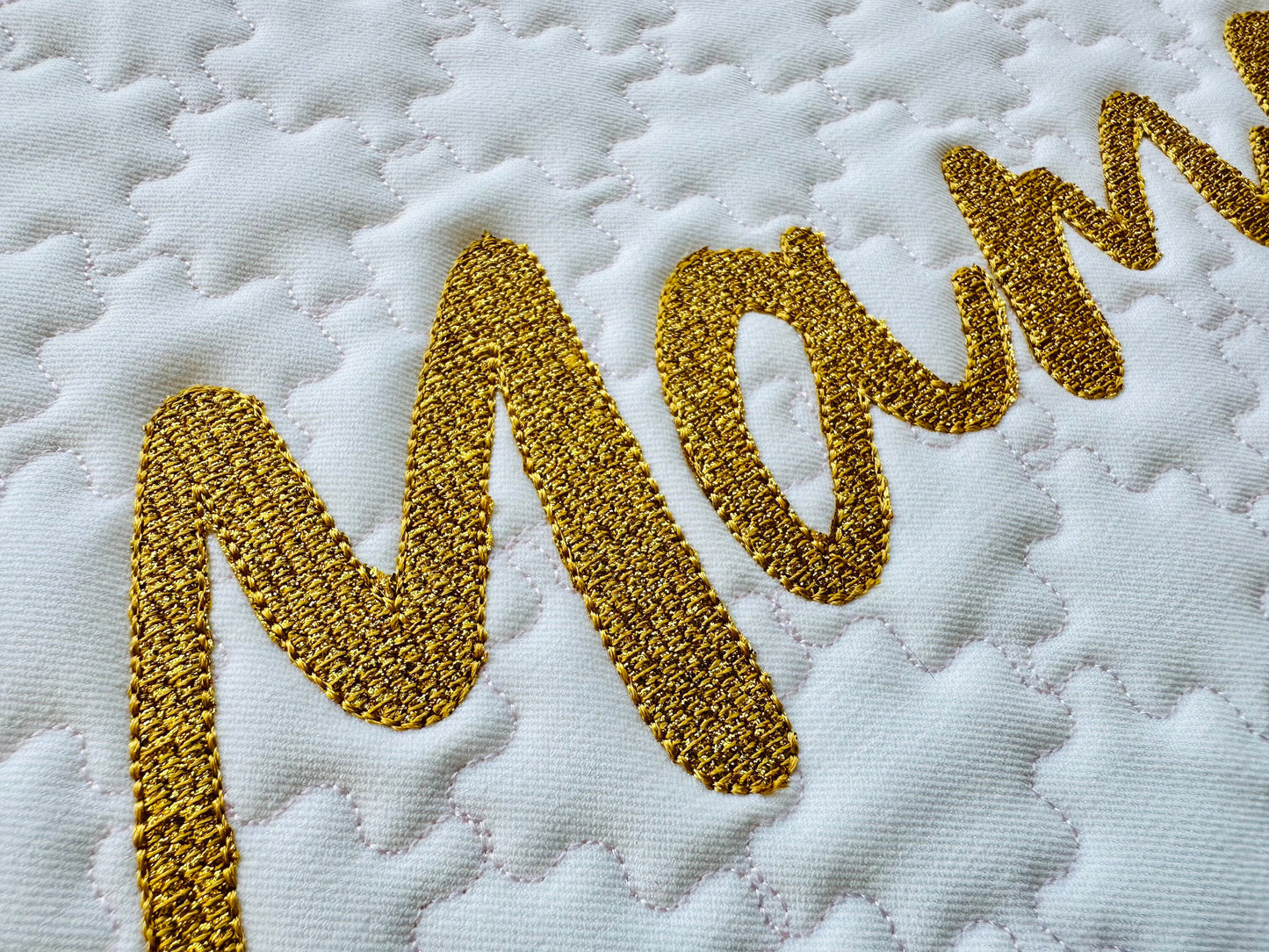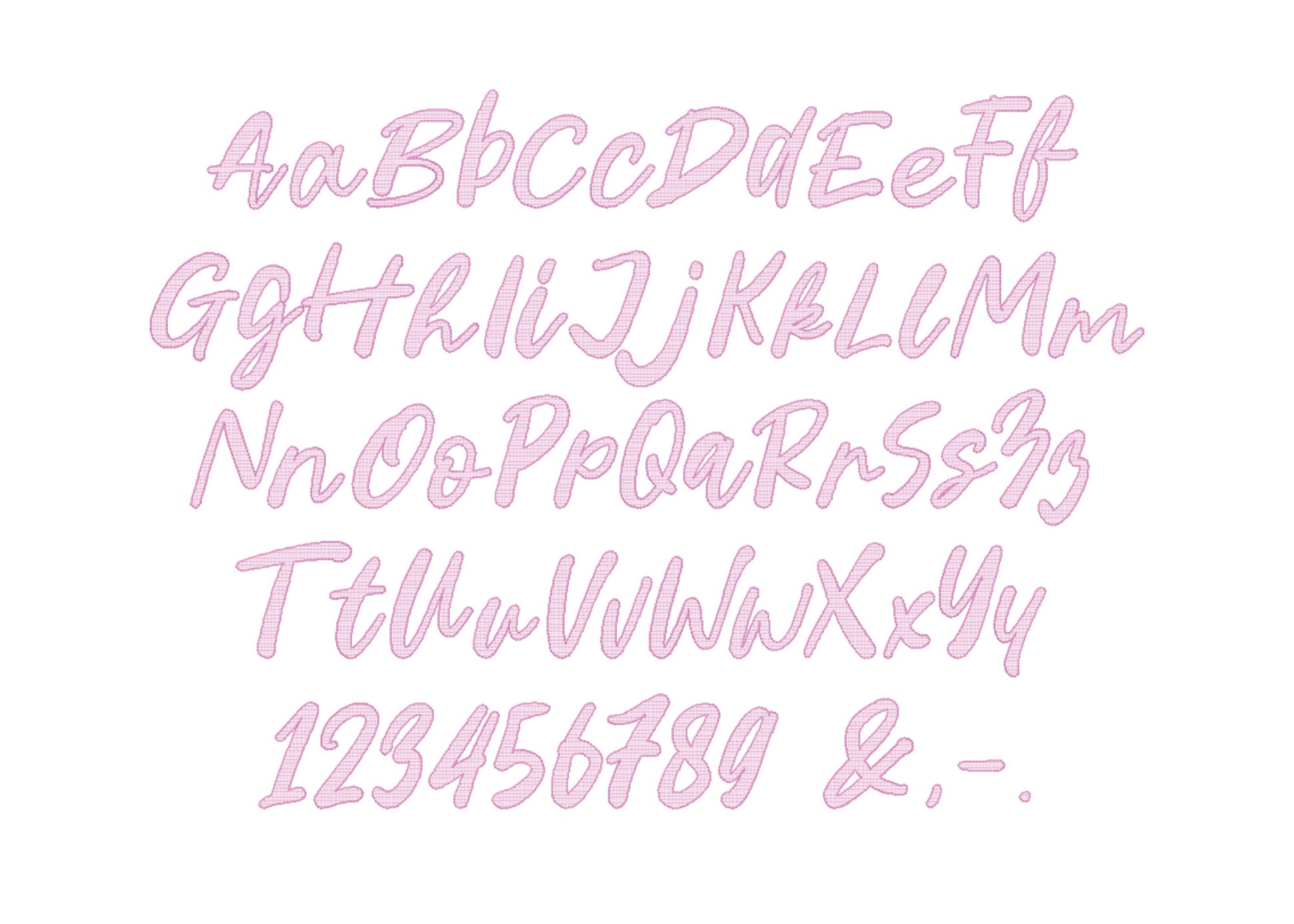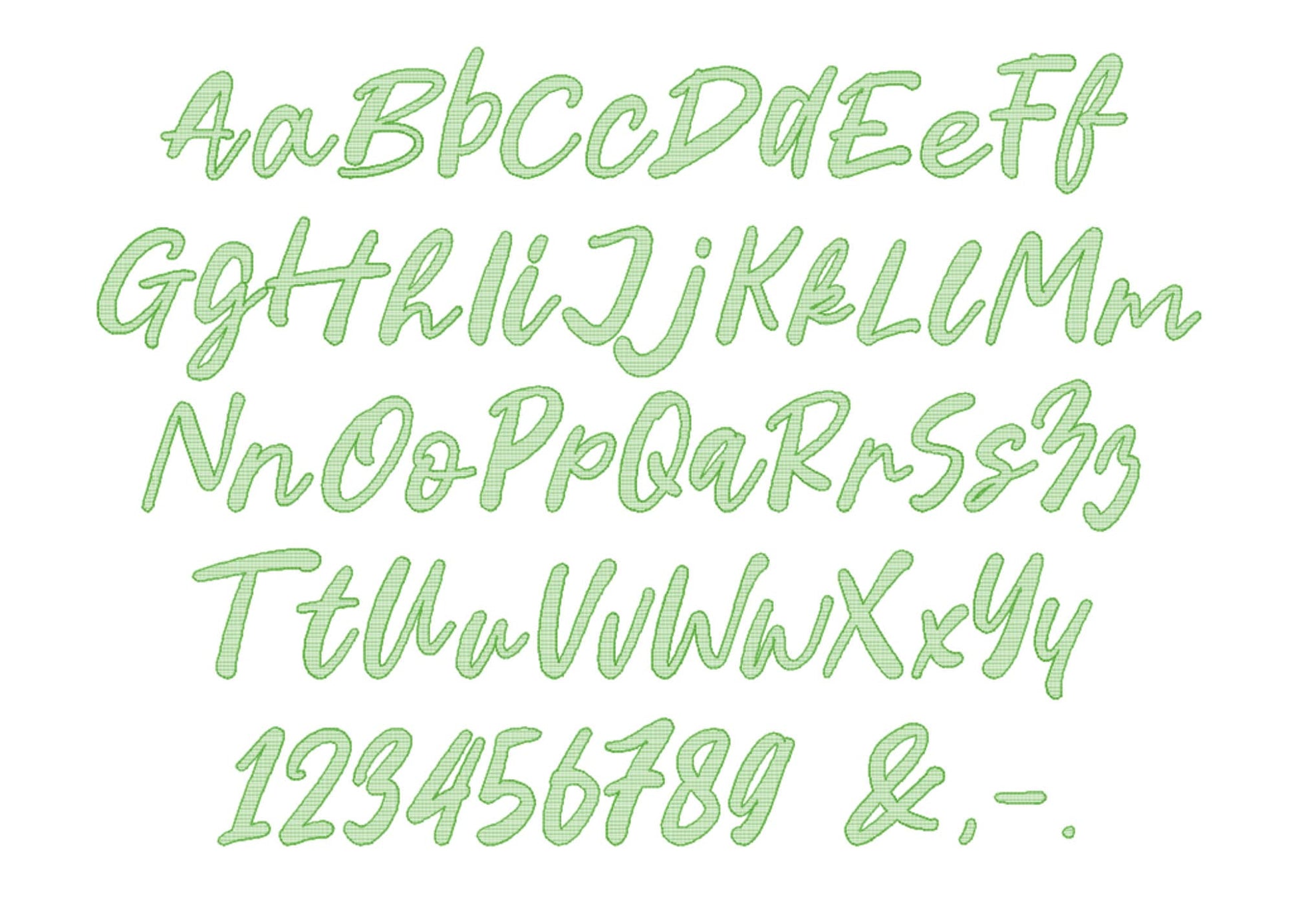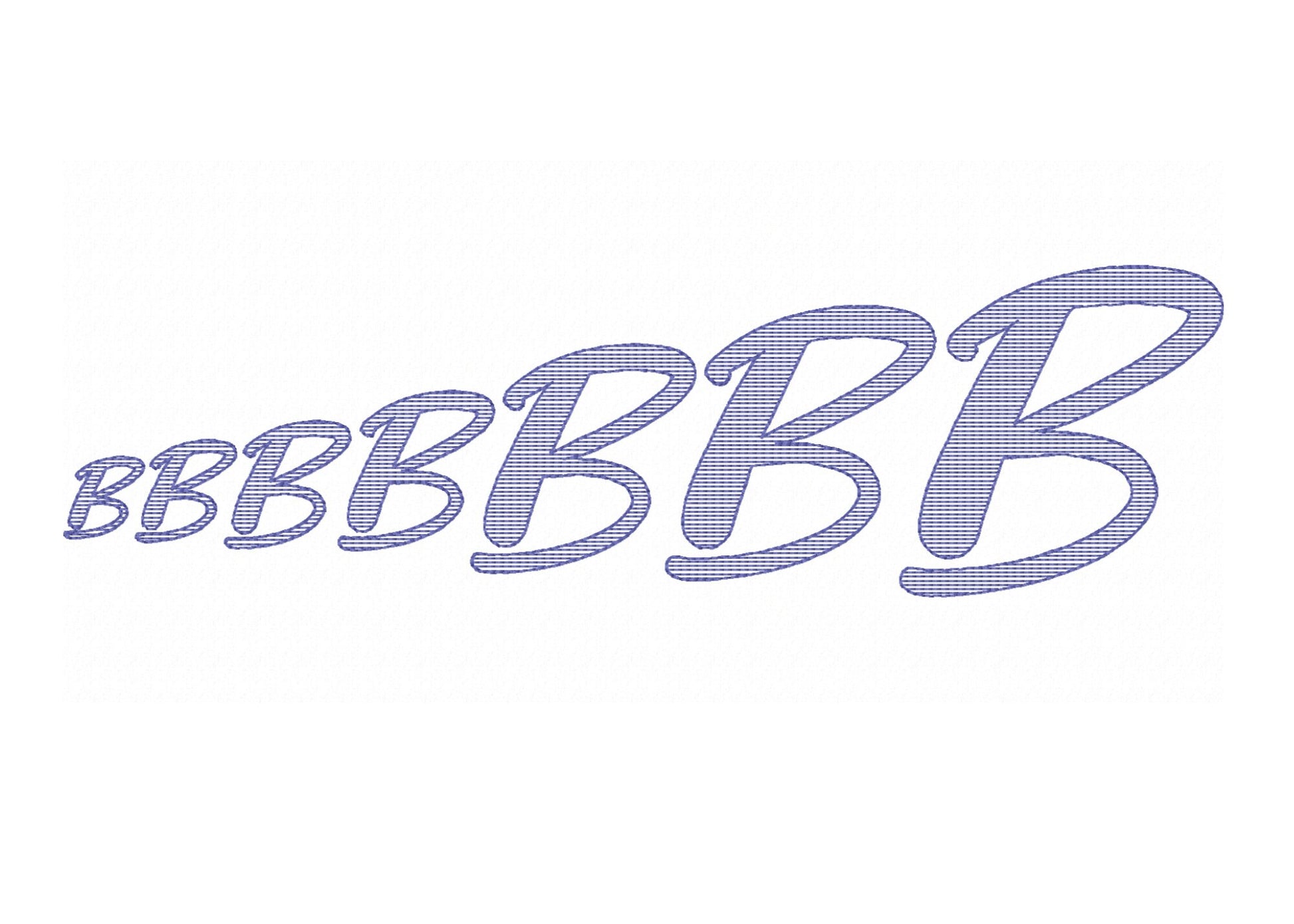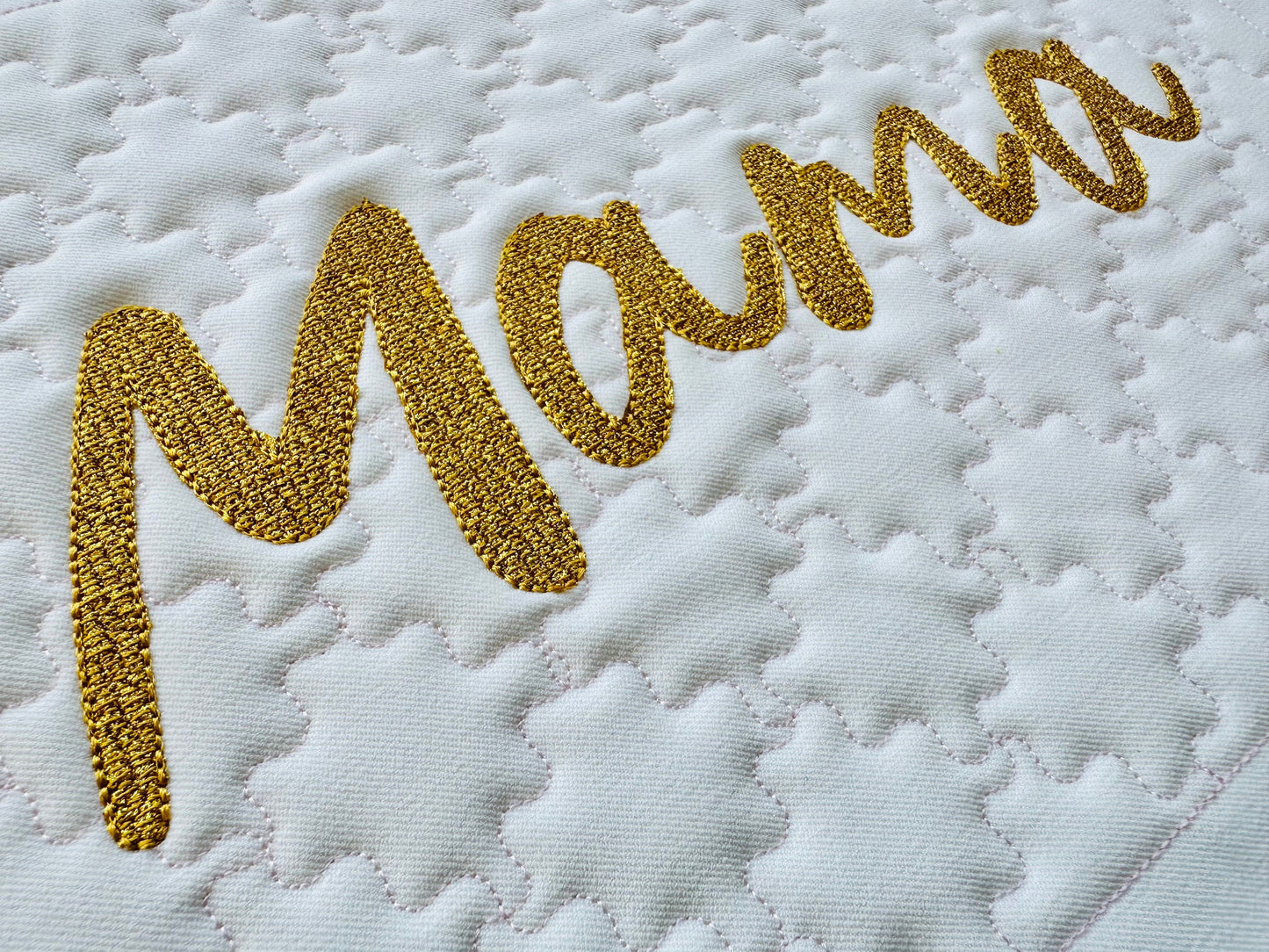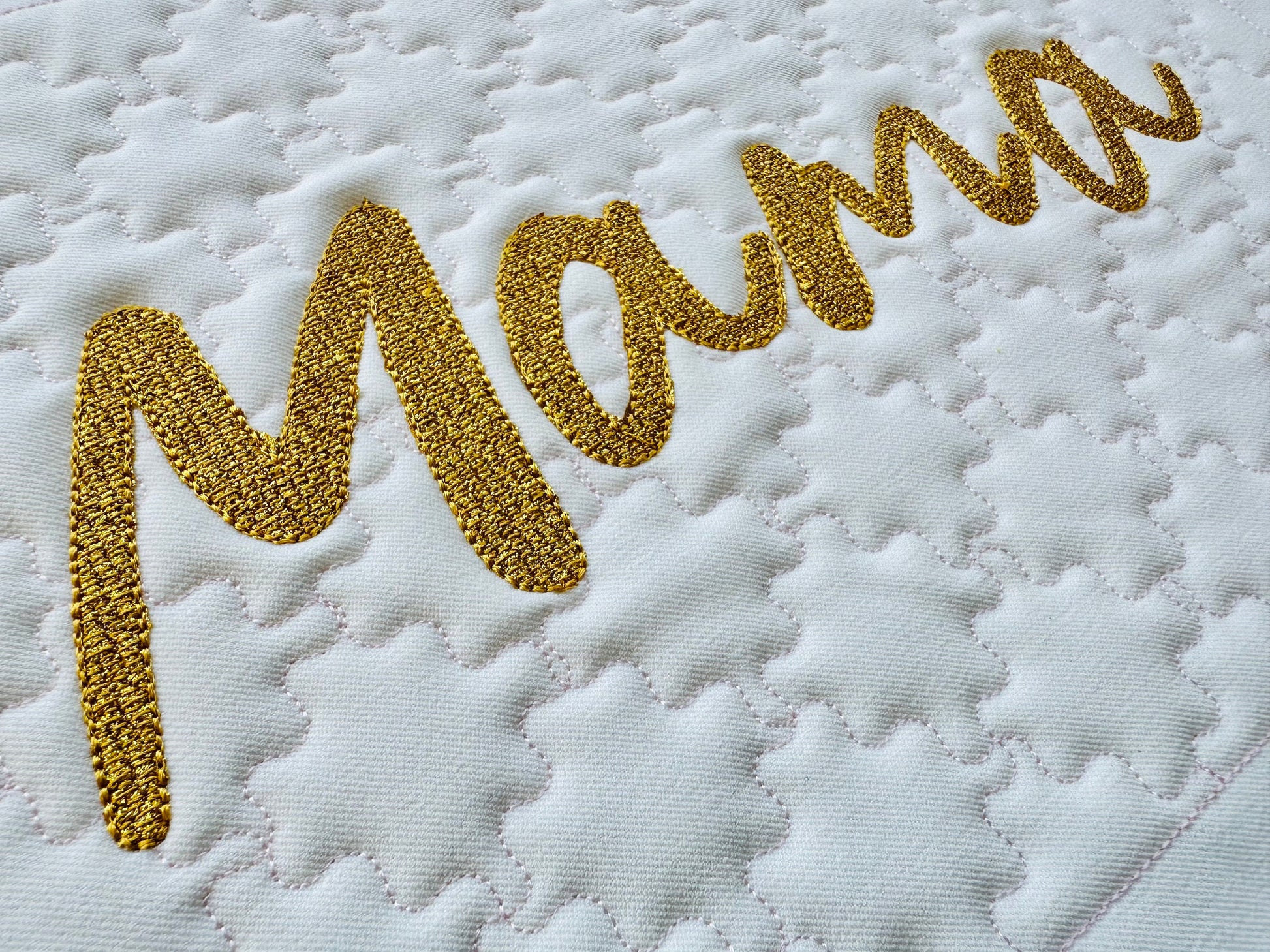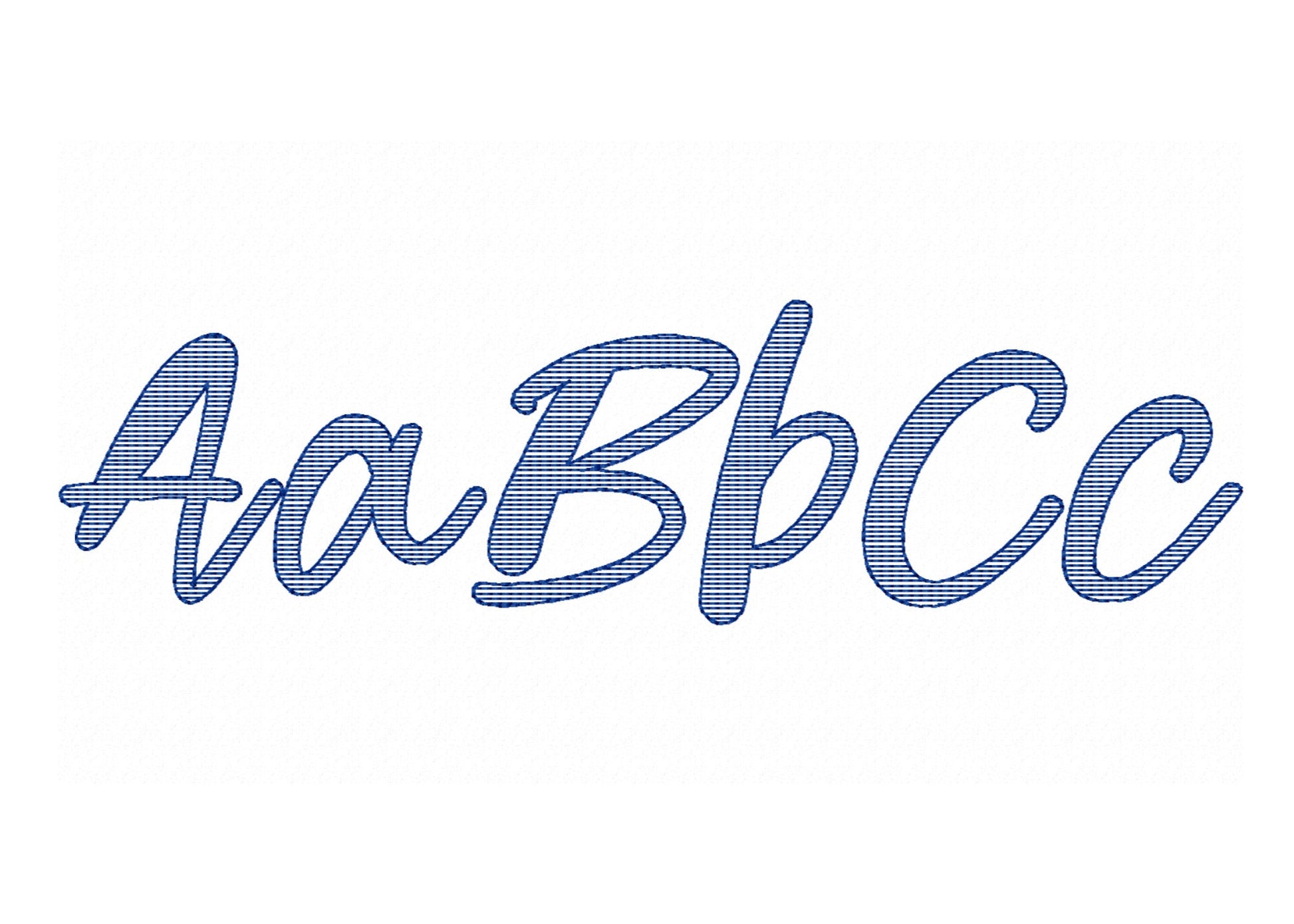
Glitter HTV Vinyl Mylar Handwritten Font
Or click to open the linkA handwritten light-stitch font for glitter vinyl or mylar, for sparkly names and words on shirts and bags.
Open letters, so the fabric or glitter shows through. Uppercase and lowercase letters, numbers and & . , - in eight sizes: 0.7, 1, 1.2, 1.5, 1.8, 2, 2.5 and 3 inches.
- Handwritten glitter vinyl or mylar font
- Uppercase, lowercase, numbers, punctuation
- 8 sizes, 0.7 to 3 in